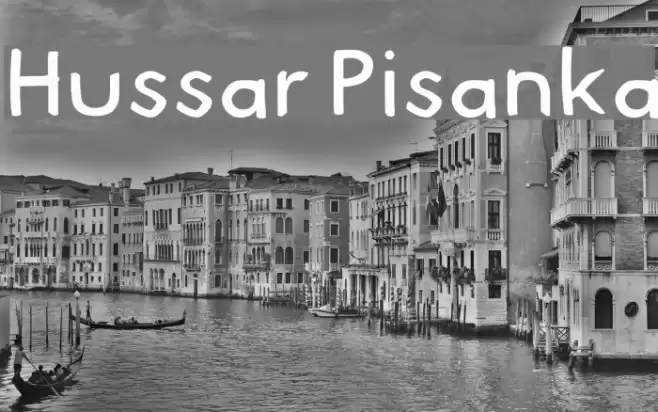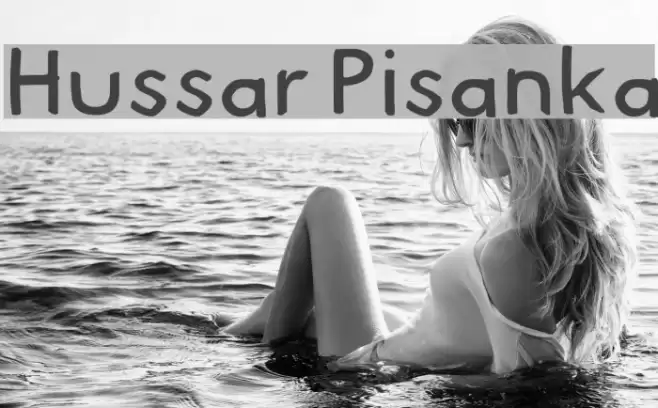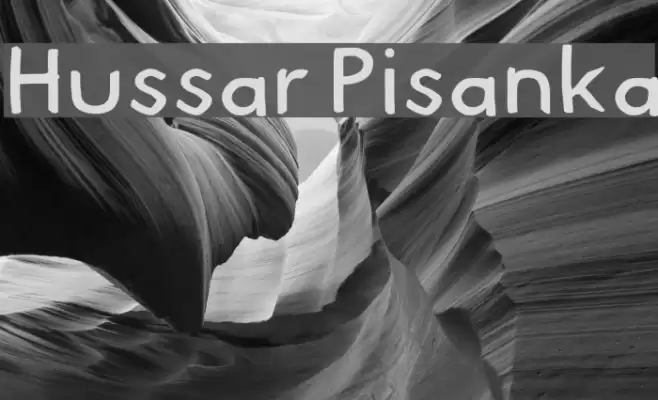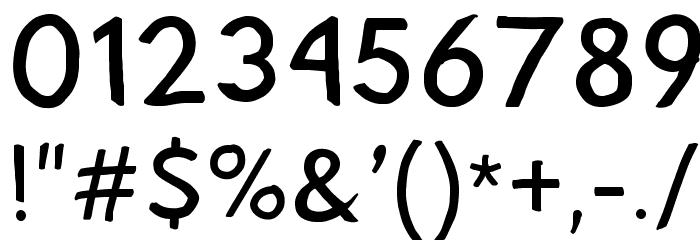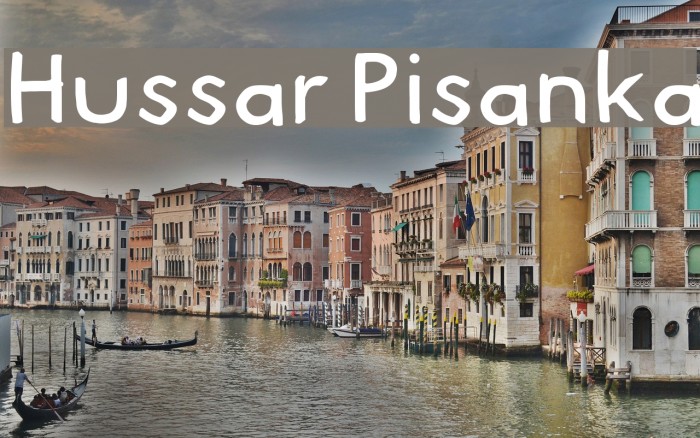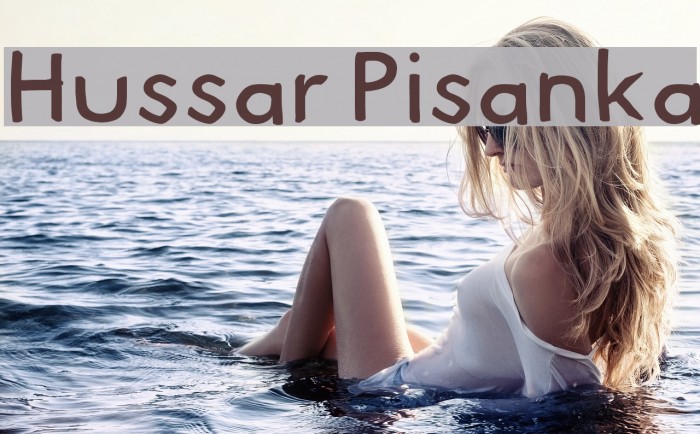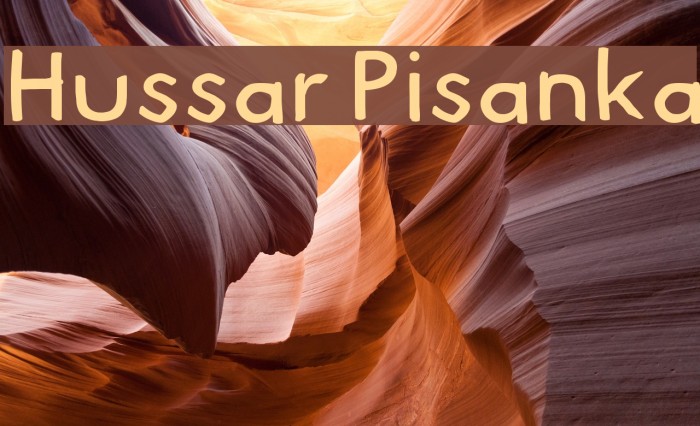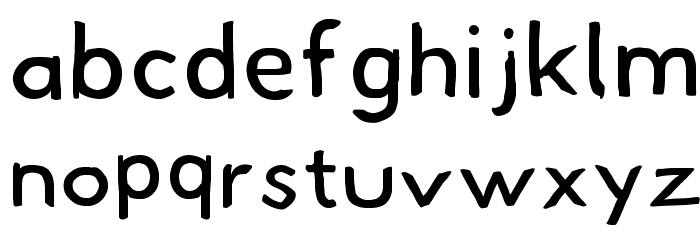
Hussar Pisanka
This font features a playful and casual style with a handwritten appearance. The characters are slightly irregular, adding a personal and informal touch. The strokes are consistent in thickness, giving it a uniform look while maintaining a lively feel. The uppercase letters are bold and prominent, while the lowercase letters have a friendly and approachable demeanor. Numbers and special characters follow the same playful design, making the font versatile for various uses. Its unique charm makes it suitable for creative projects that require a personal touch.
A playful, handwritten-style font with consistent stroke thickness and a casual feel.
- Proposed Projects: Ideal for greeting cards, children's books, informal invitations, and creative branding projects.
- Overall Style: Casual
- Use Case: Headlines, Informal text, Creative projects